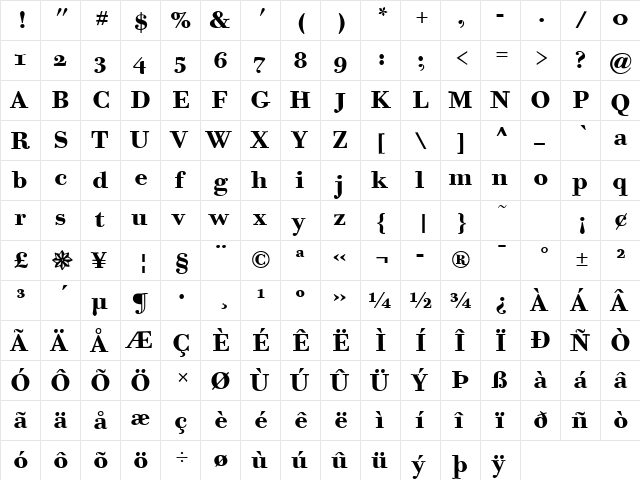
Bodoni Six OS ITC TT Bold
Design Context for Bodoni Six OS ITC TT Typeface
Bodoni Six OS ITC TT is a composed and adaptable typeface that performs quietly and consistently across a wide range of design contexts. Its bold stroke weight gives it real presence on the page.